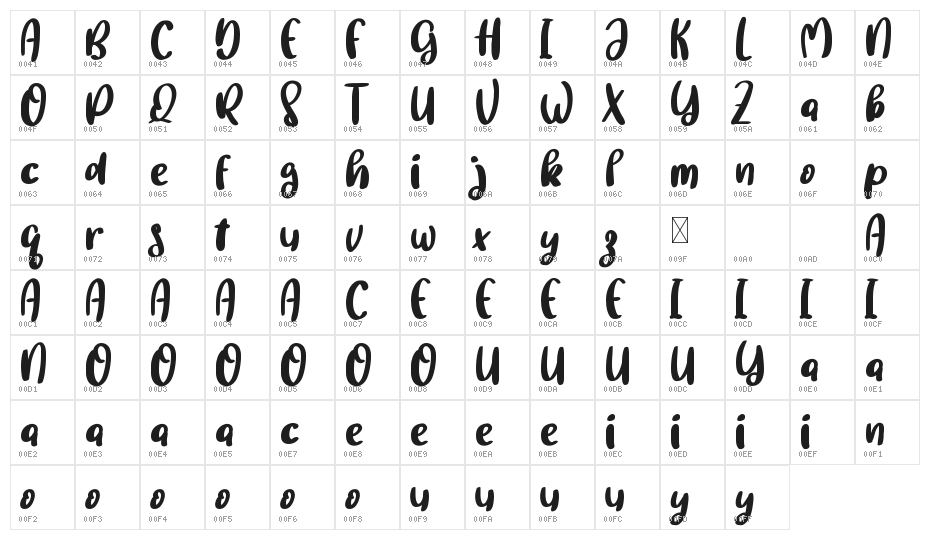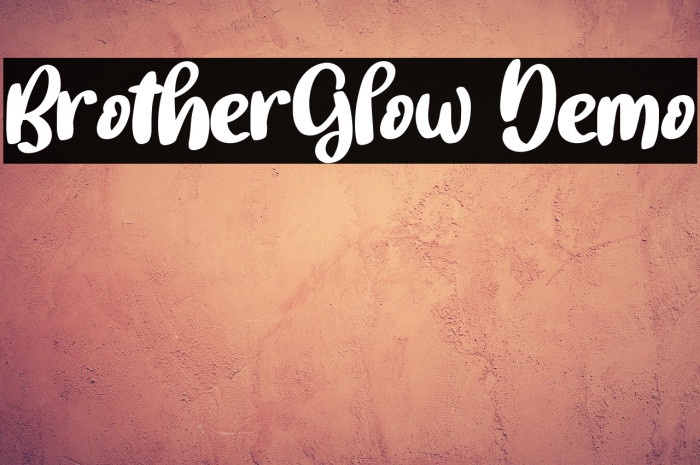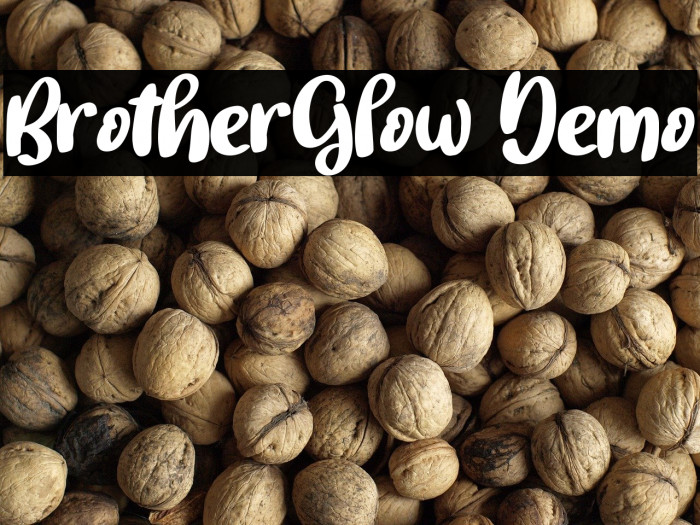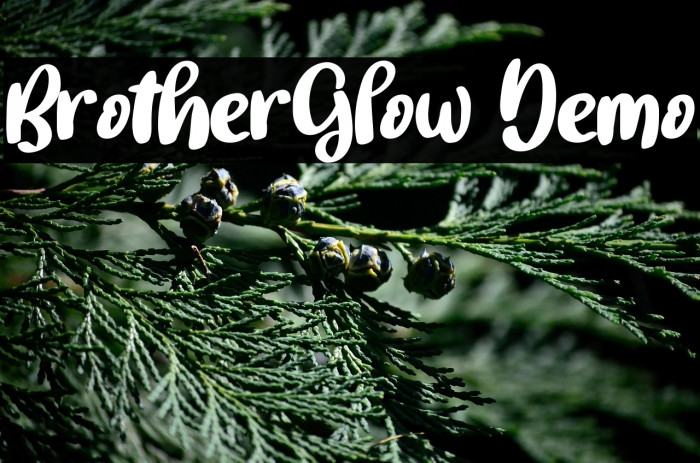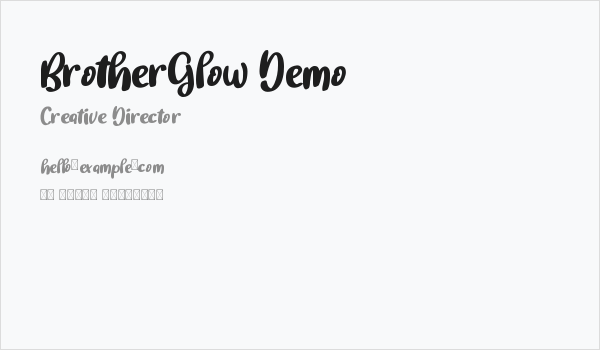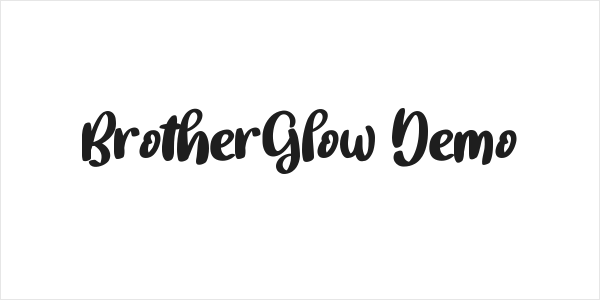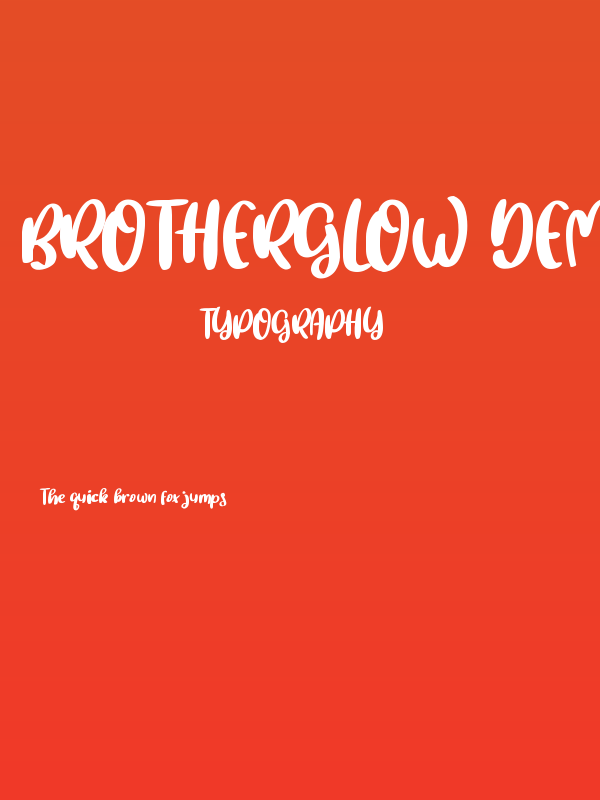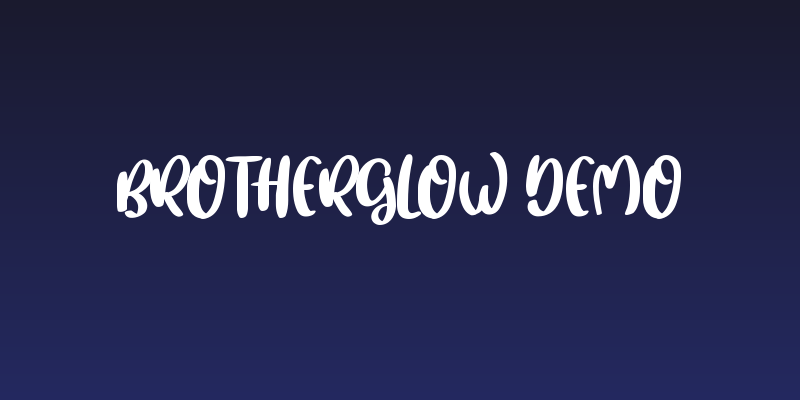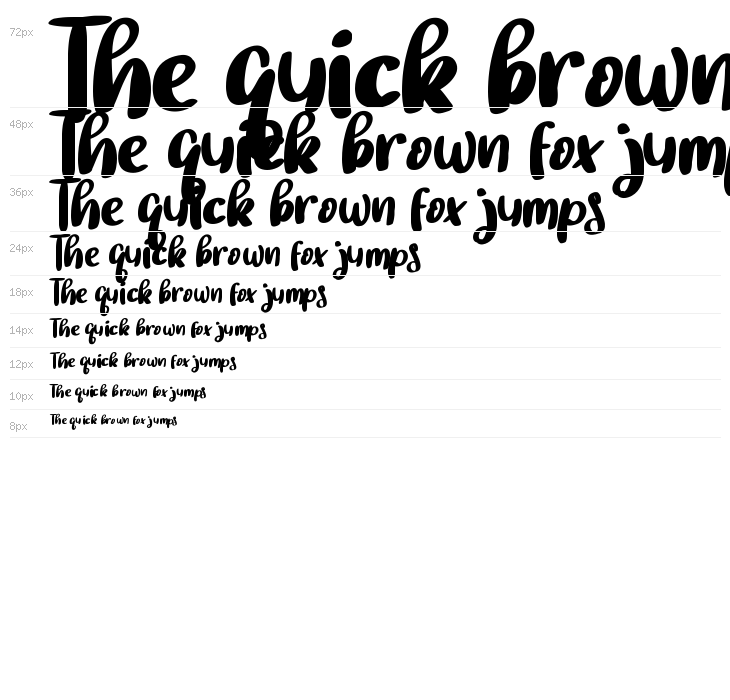
BrotherGlow Demo Font
BrotherGlow Demo Description
This font features a bold and expressive script style with a playful and dynamic flow. The characters are interconnected with smooth, rounded strokes, giving it a lively and energetic appearance. The uppercase and lowercase letters maintain a consistent style, with a slight slant that adds to its casual and friendly feel. The thick strokes and high contrast between thick and thin lines make it stand out, ideal for capturing attention. The font's unique character shapes and decorative elements make it suitable for creative and artistic projects.
| Proposed Projects | Perfect for branding, invitations, posters, and social media graphics where a lively and artistic touch is desired. |